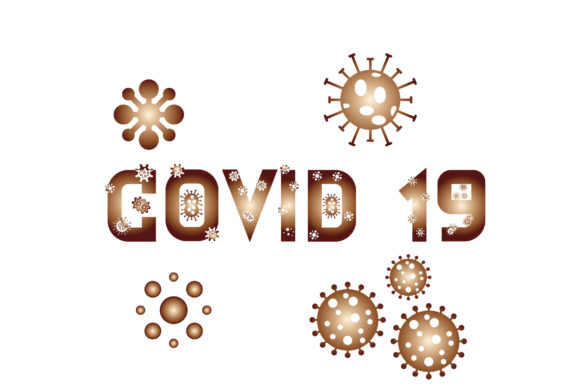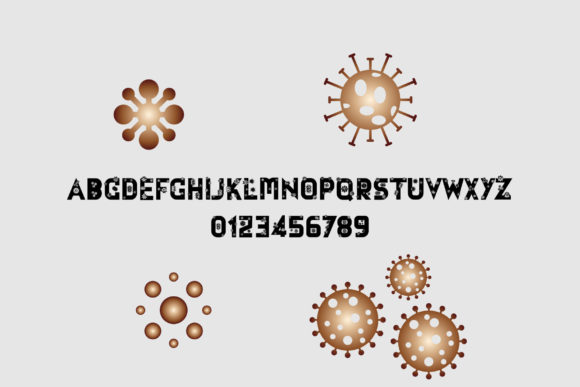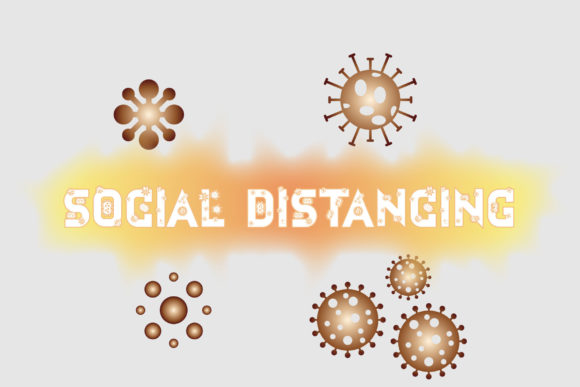
The Perfect Dose of Creativity: Introducing the Coronavirus Font
Have you ever stared at a blank canvas, desperately searching for the perfect font to bring your idea to life? We’ve all been there. The blank page stares back at you, a seemingly endless sea of possibilities. But what if I told you that there’s a font that can turn that blank page into a masterpiece? Enter the Coronavirus Font, a bold and uniquely designed decorative font that’s about to revolutionize the way you create.
This versatile font is the ultimate game-changer for designers, capable of elevating any project to new heights. Whether you’re working on a personal or professional project, the Coronavirus Font has the potential to take your creations to the next level. With its bold and eye-catching design, this font is sure to leave a lasting impression on your audience.
Key Features of “Coronavirus Font”
- Resolution: Designed to be scalable, the font can be used at high resolutions, making it ideal for digital applications and large-scale displays.
- Unique Characteristics: The font features a distinctive, modern design with bold lines and a unique shape, making it perfect for use in news headlines, infographics, and other attention-grabbing materials.
- Customizability: The font allows for customization of color, size, and style, enabling users to tailor it to their specific design needs and preferences.
- Legibility: Despite its bold design, the font is highly legible, ensuring that the text remains clear and easy to read even at smaller sizes.
Coronavirus Font Review
I recently had the chance to try out the Coronavirus Font, and here’s my honest take on it.
- ✨ Unique Design: The font’s bold and distressed design makes it perfect for creating eye-catching headlines and titles.
- ✨ Versatility: The font comes in multiple weights, which makes it suitable for various design projects, from posters to digital screens.
- ⚠️ Limited Legibility: At smaller font sizes, the font’s distressed design can make it difficult to read, especially for those with visual impairments.
- ⚠️ Limited Character Set: The font only includes basic characters, which may not be suitable for languages that require a wide range of characters.
- ⚠️ Overused: The font’s design is reminiscent of other distressed fonts, which may make it feel overused and cliché in some designs.
While the Coronavirus Font has its strengths, its limitations may make it less suitable for certain design projects. With some careful consideration and use, however, it can be a great addition to any designer’s toolkit.
The Coronavirus Font is ideal for creating awareness and educational materials about COVID-19. It can be used in posters, flyers, brochures, and other visual aids. To get the most out of the font, use it in combination with other visual elements, such as images and graphics, to create a clear and compelling message.